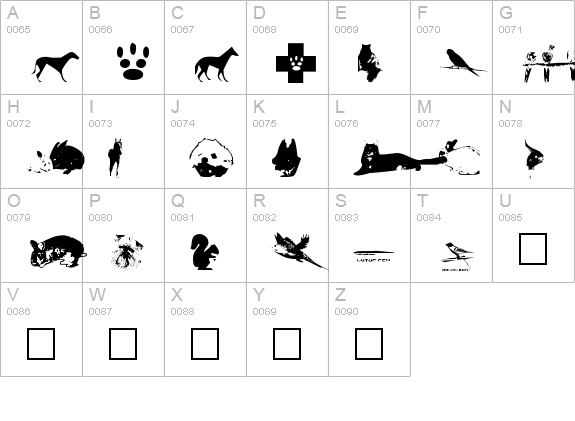
Vetrinarian bats Font Details
Introducing the captivating and versatile Vetrinarian bats font, a stunning addition to any design project. This unique typeface brings a touch of elegance and mystery to your creations, making them truly stand out from the crowd. Vetrinarian bats font is perfect for adding a touch of whimsy and enchantment to your designs. Its delicate and intricate details make it ideal for creating eye-catching logos, headlines, posters, and more. Whether you're working on a project that requires a hint of darkness or you simply want to add a touch of playfulness, this font is sure to exceed your expectations. What sets Vetrinarian bats font apart is not only its stunning design but also its accessibility. We believe that creativity should be free, and that's why we're excited to offer this incredible font for free download at FontsMarket.com. Now, you can effortlessly enhance your designs without breaking the bank. Downloading Vetrinarian bats font is quick and easy, allowing you to unleash your creativity in no time. Whether you're a professional designer or a hobbyist, this font is a must-have addition to your collection. Its versatility and timeless appeal ensure that it will never go out of style. So why wait? Discover the magic of Vetrinarian bats font today and let your imagination soar. Download it for free at FontsMarket.com and watch as your designs come to life with a touch of elegance and mystique. Embrace the freedom of creativity and make a lasting impression with this exceptional font.